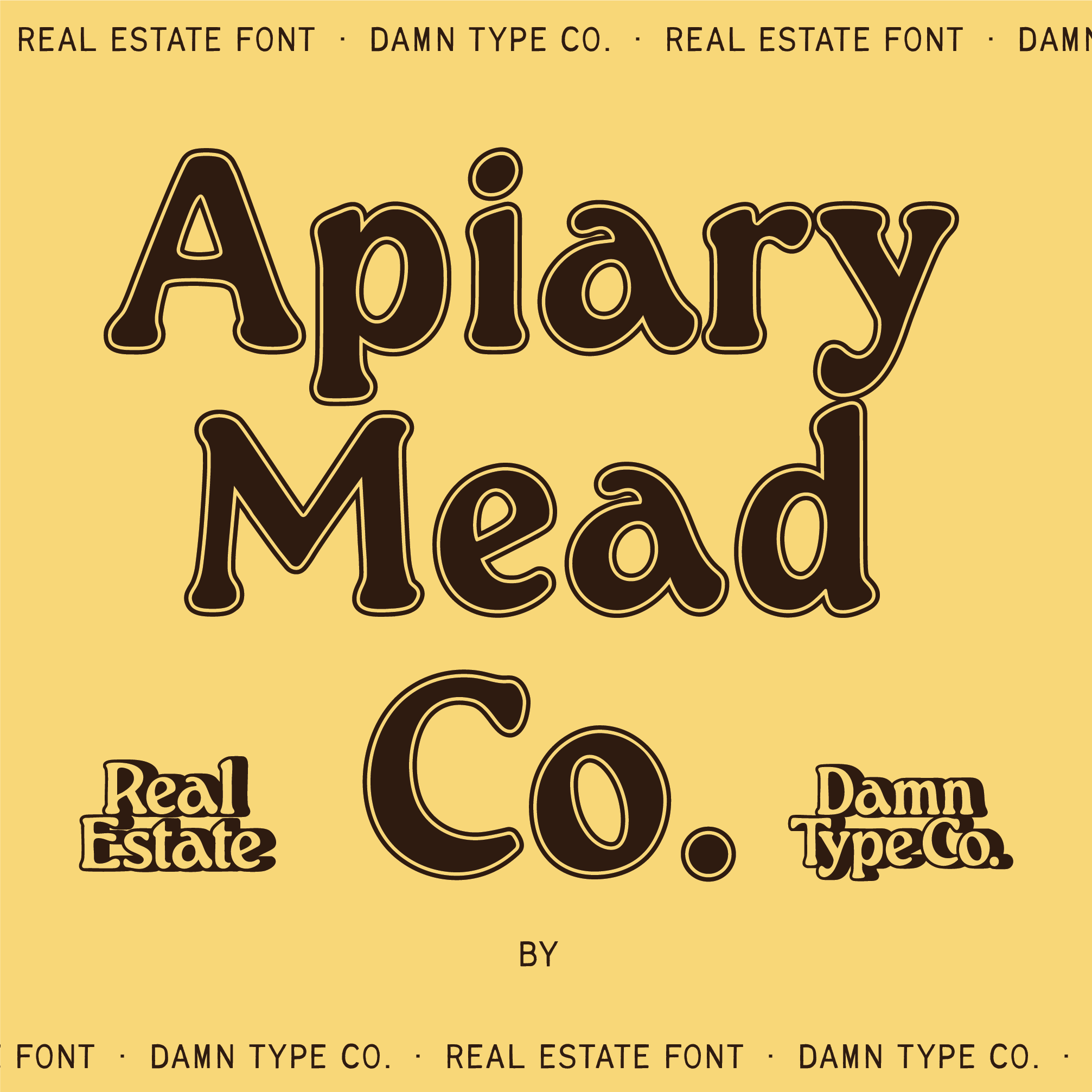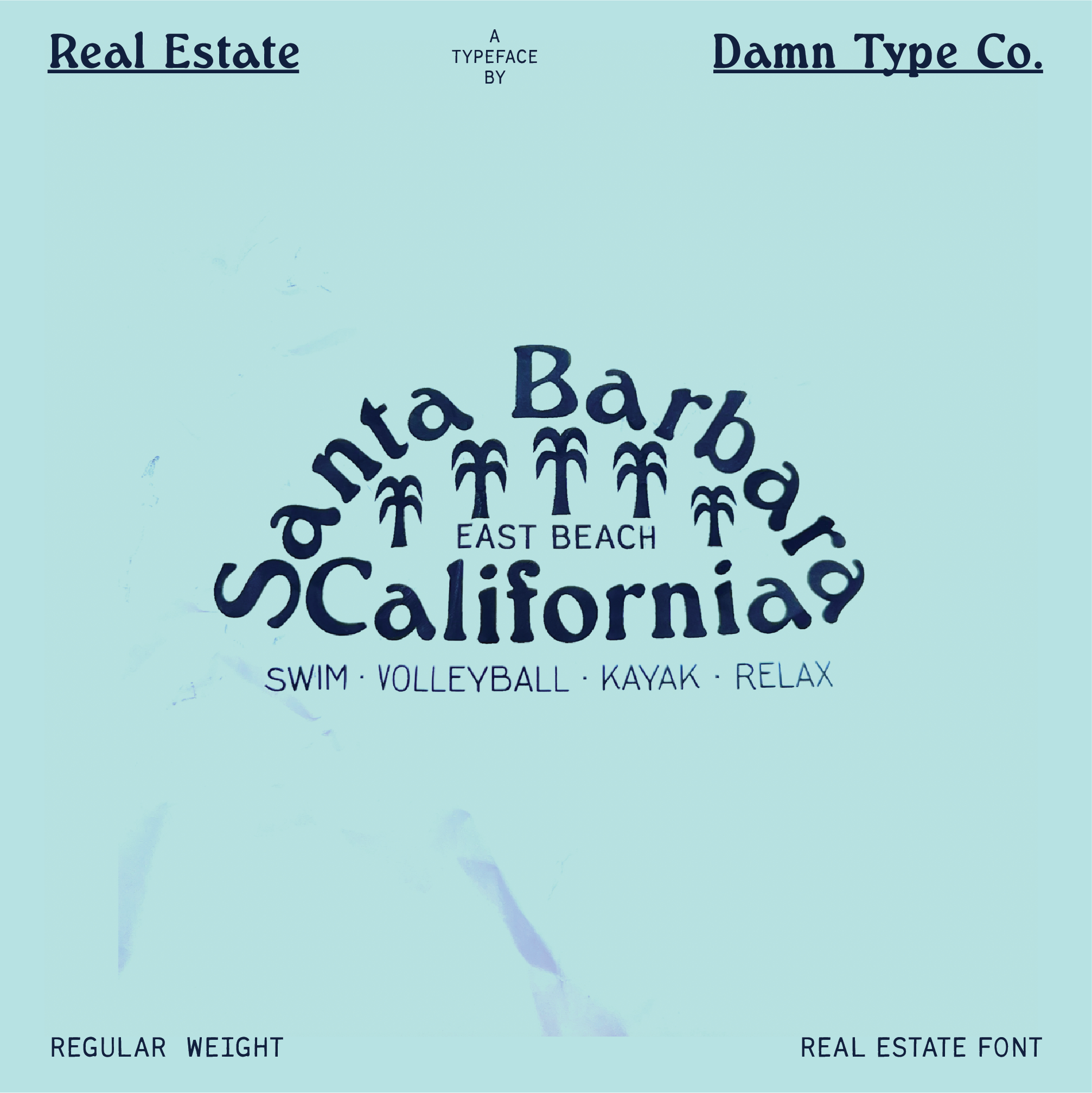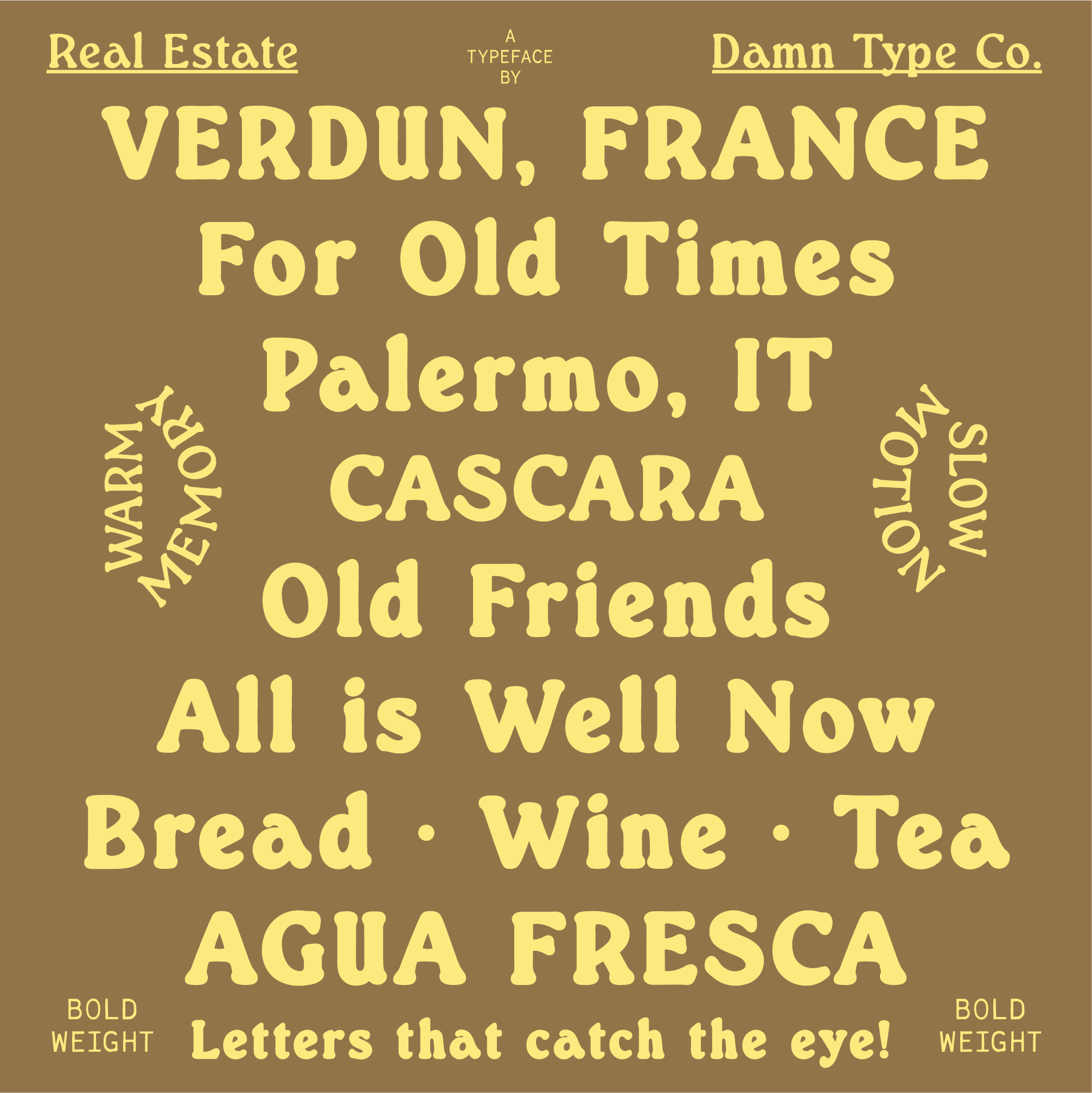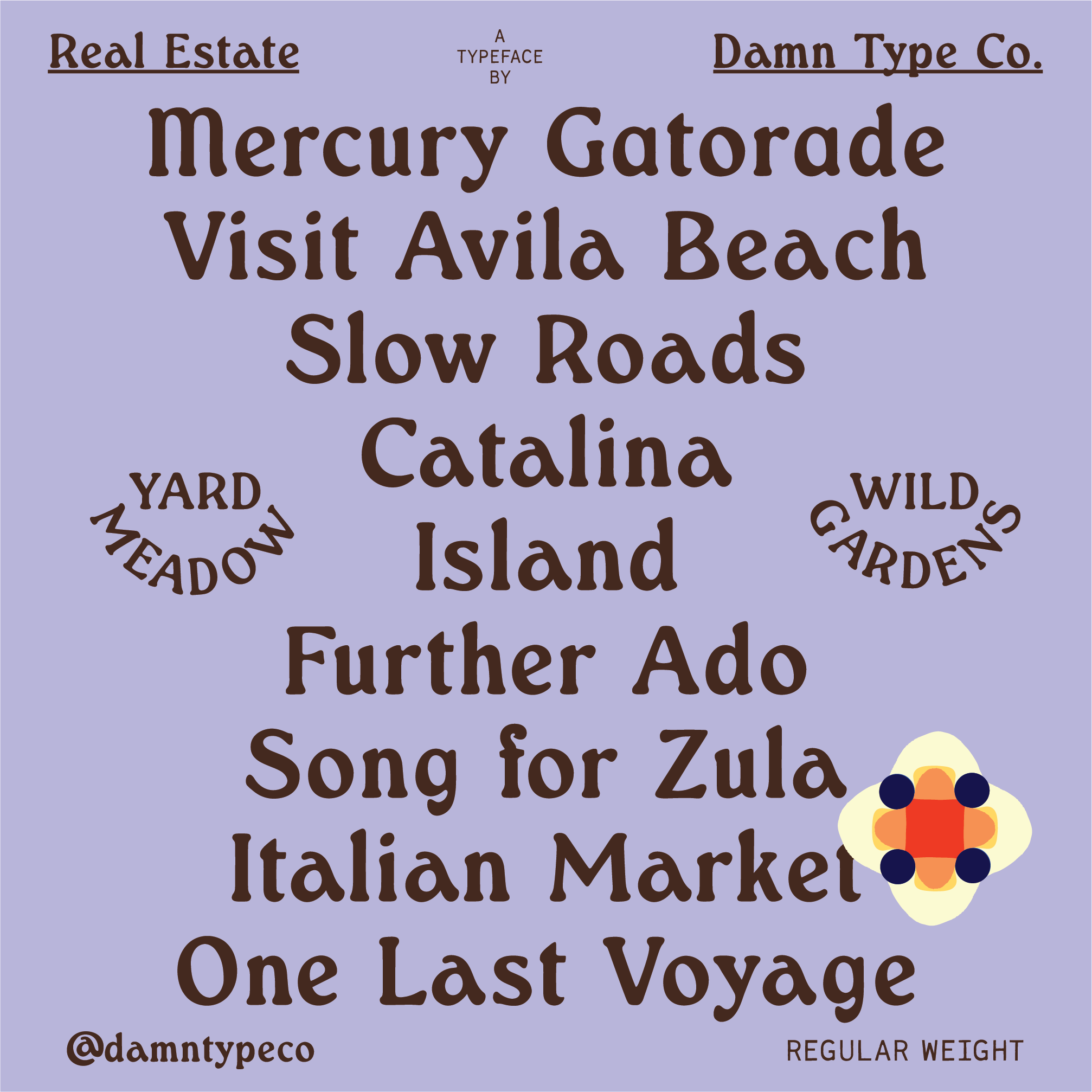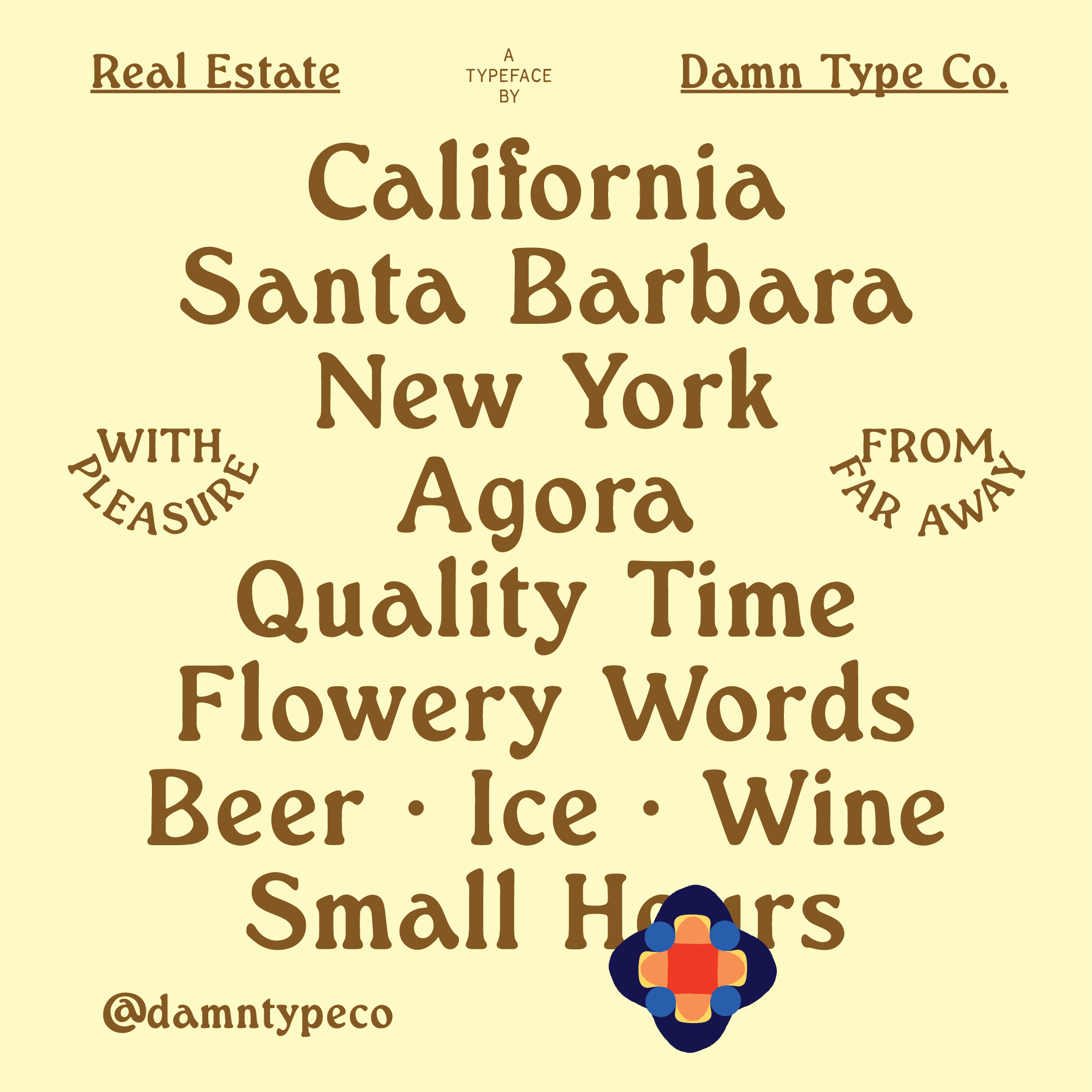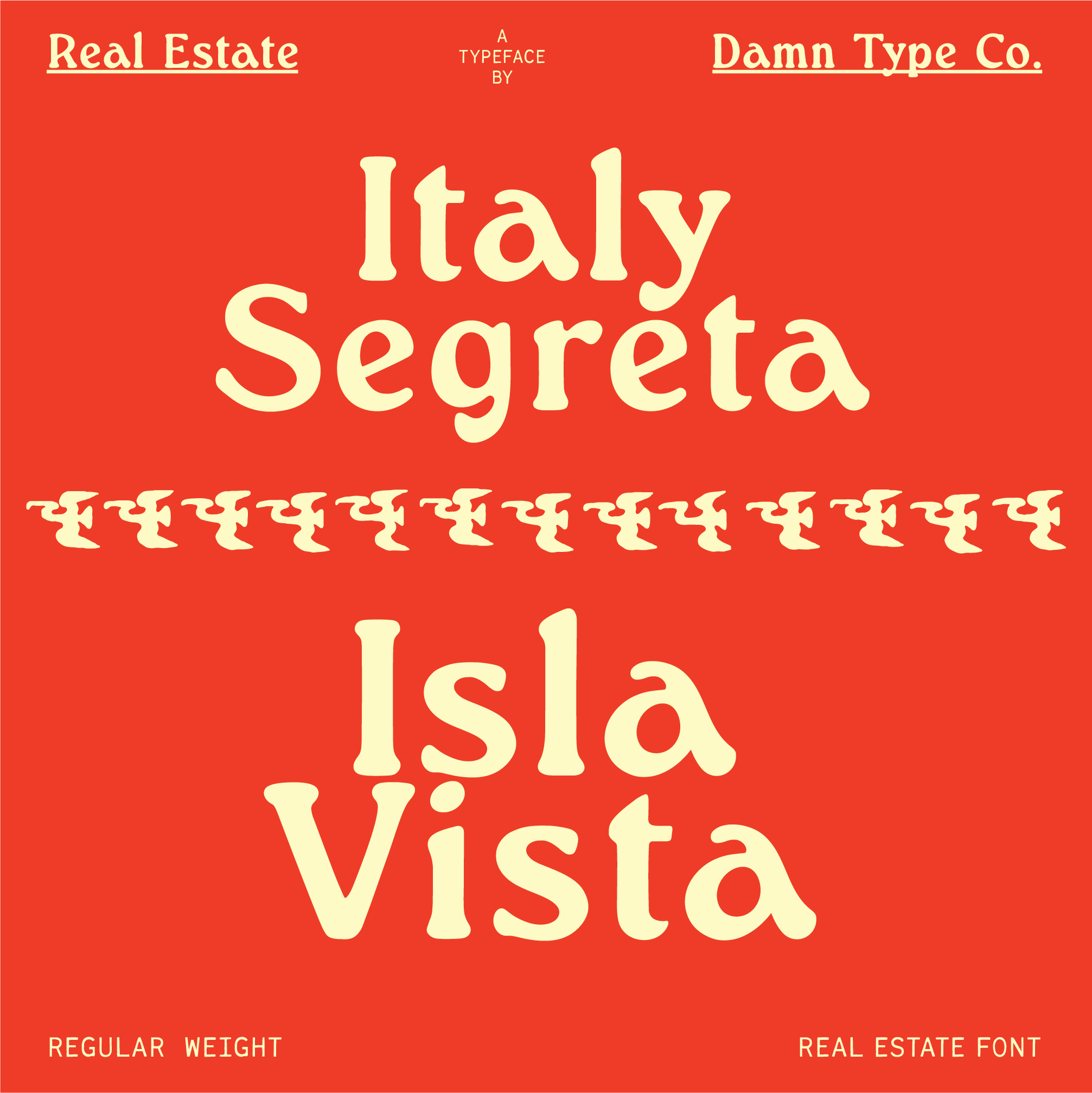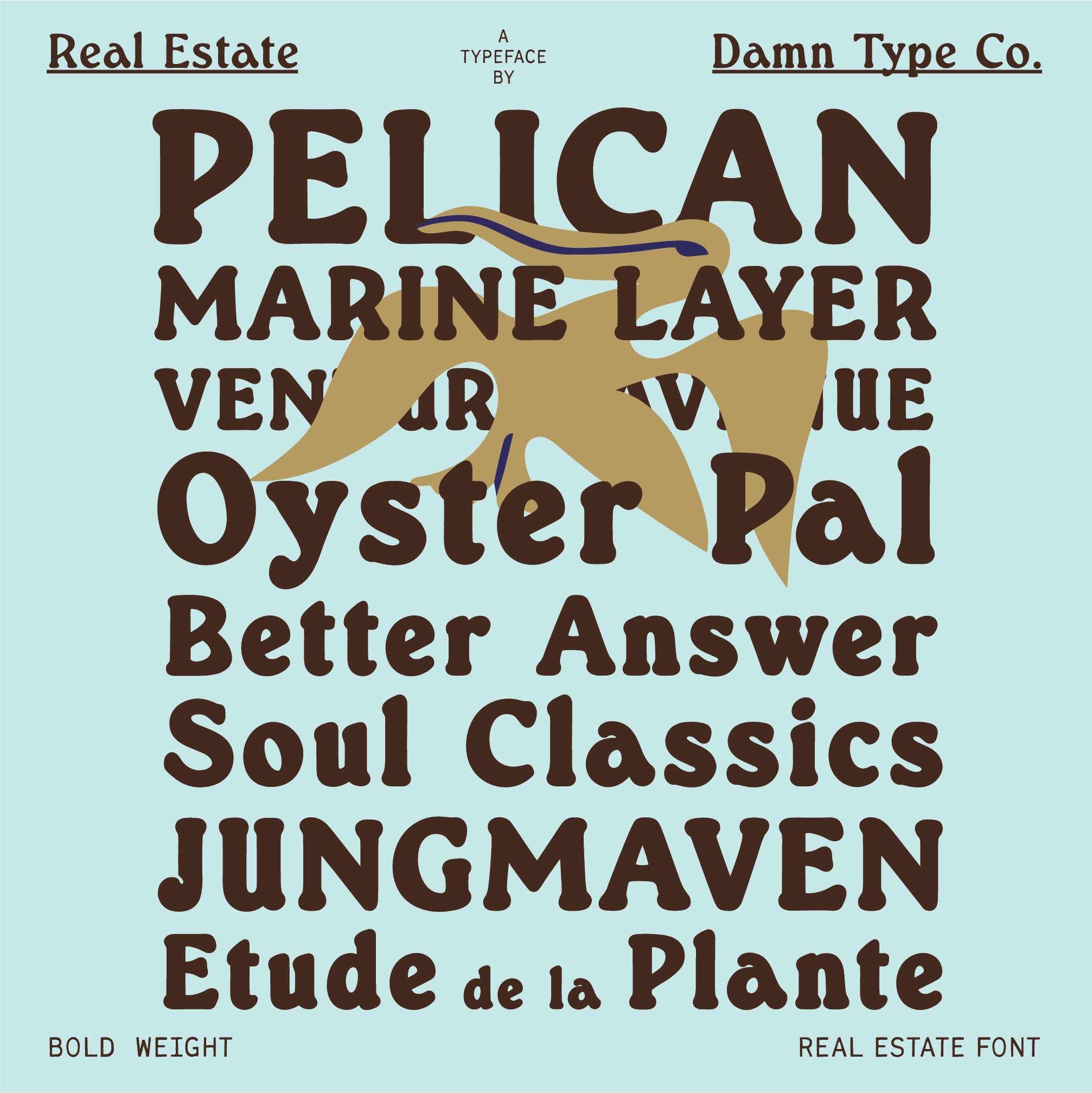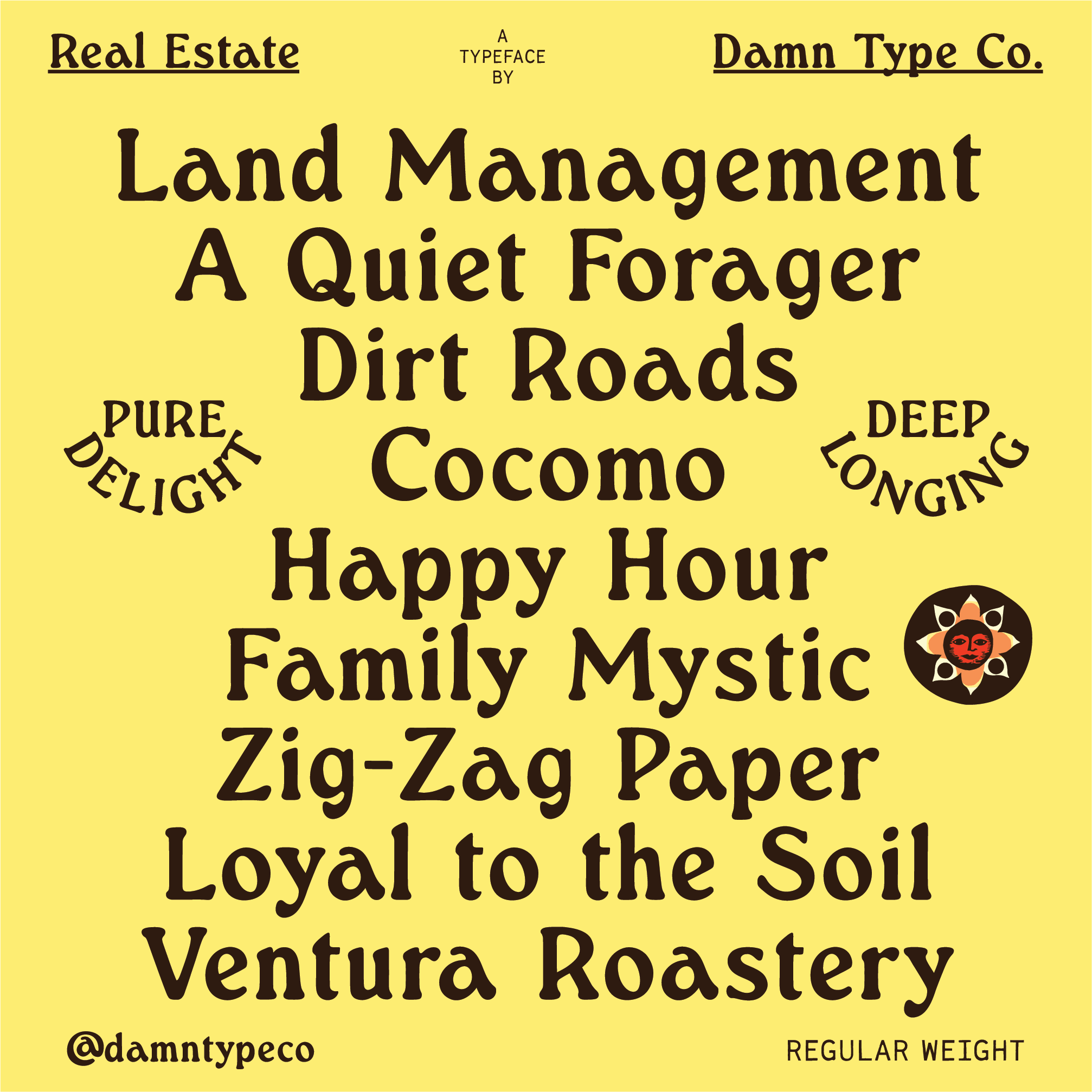
Real Estate is equal parts classic and curious, with letters that feel rooted, surprising, tidy, and delightfully imperfect.
It supports English, French, German, Spanish, Italian, Portuguese, Dutch, and most Scandinavian languages, with more on the horizon!
I stumbled upon a copy of Pillard Verneuil’s Étude de la Plante from 1903. One glance at the lowercase a and I knew it had enough character to carry an entire family. It’s playful, elegant, and just a little unruly. Over time, the serifs softened into round edges, nodding to familiar friends like Cooper and Windsor, but I wanted the peculiar charm of Verneuil’s study to remain in most curves.
Like an aging house with a fresh coat of paint, Real Estate is built on old bones but ready for new stories.